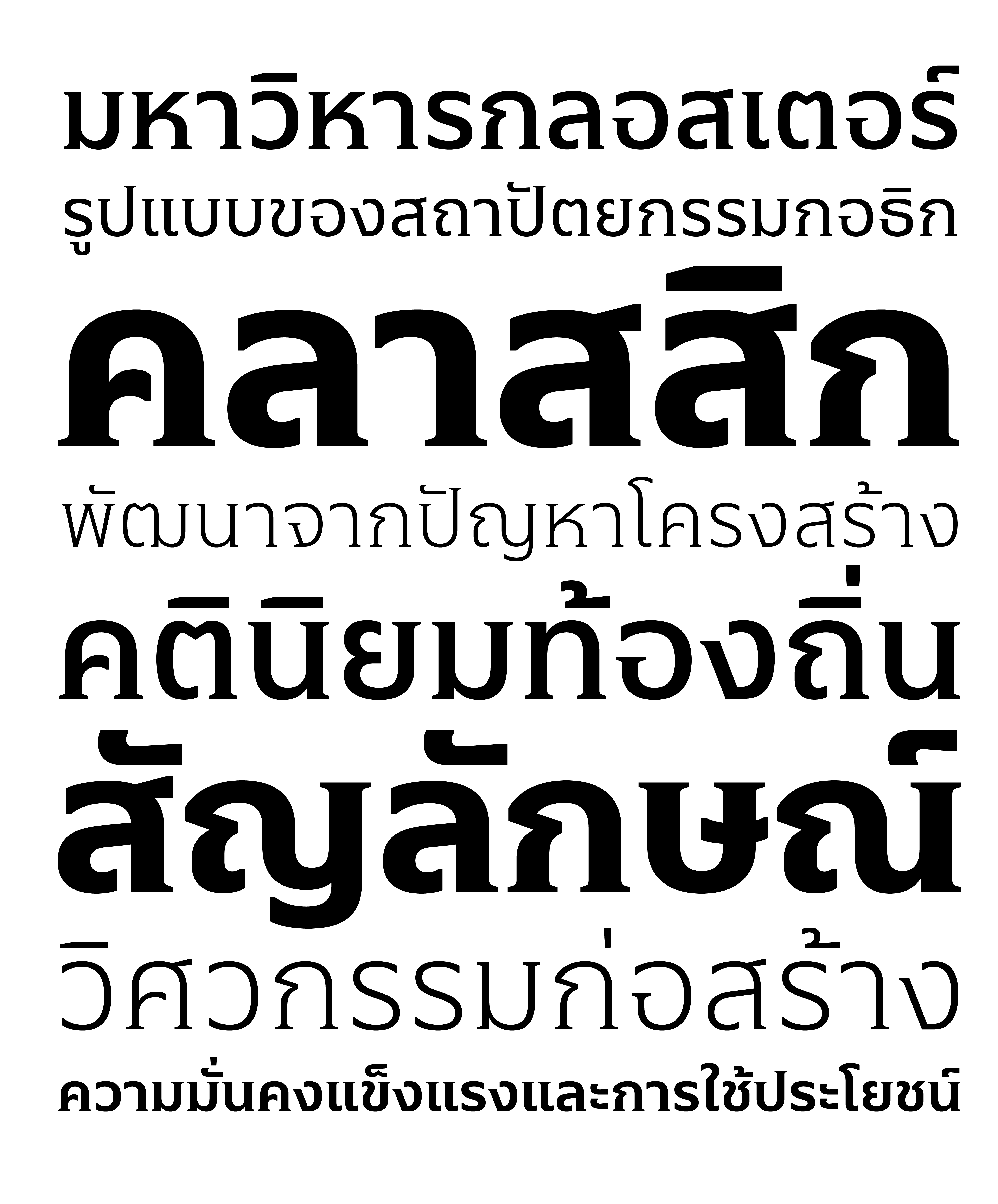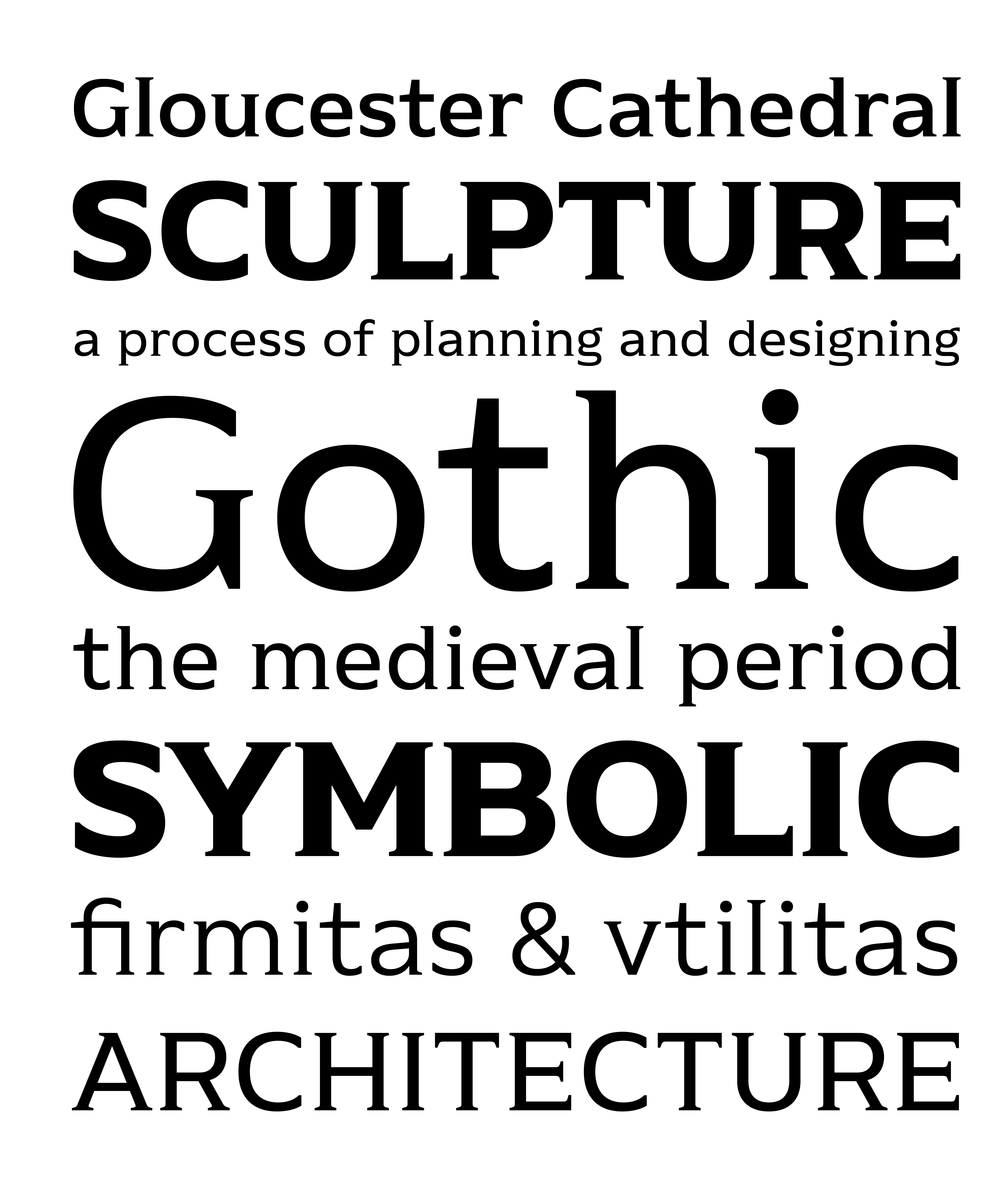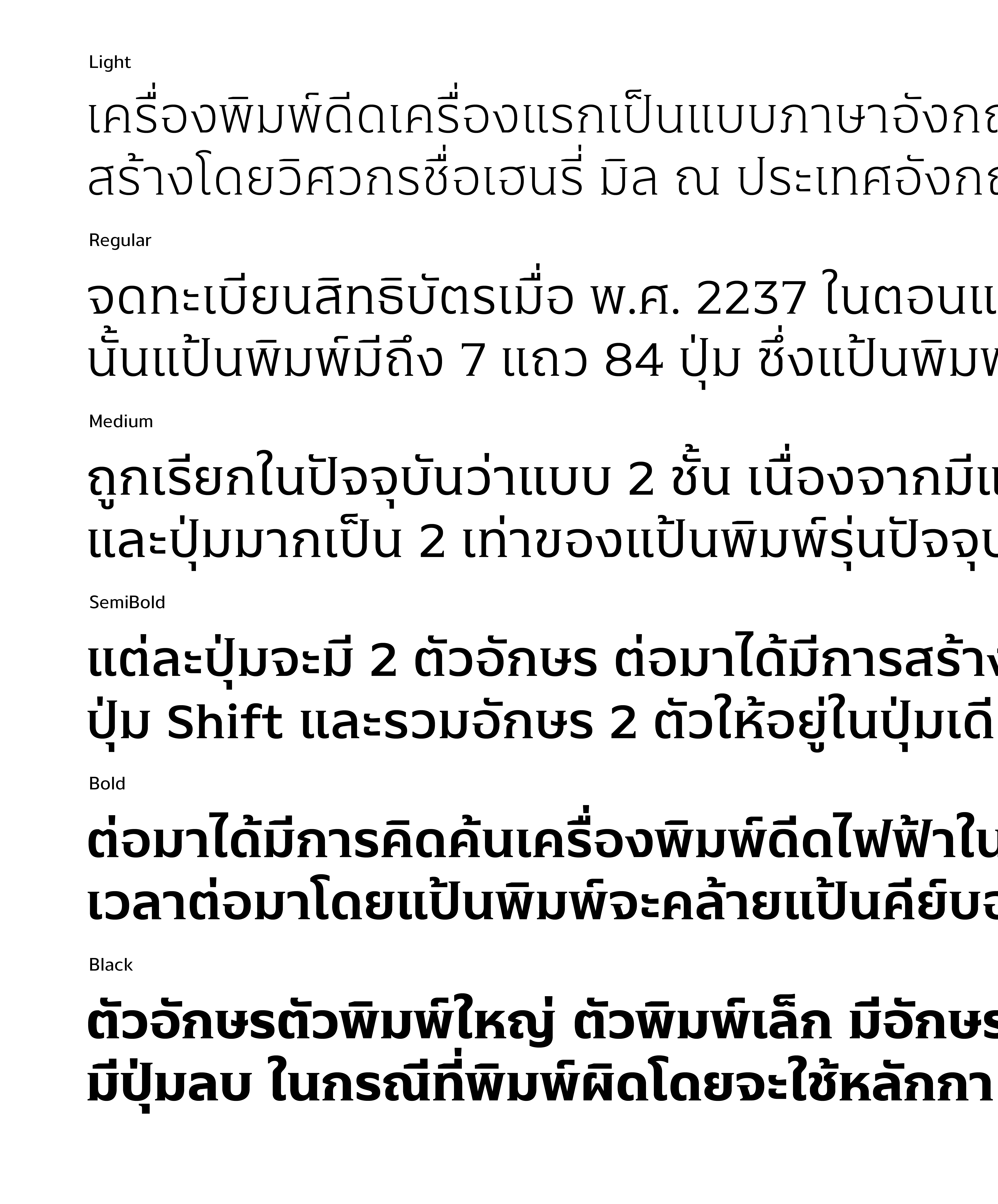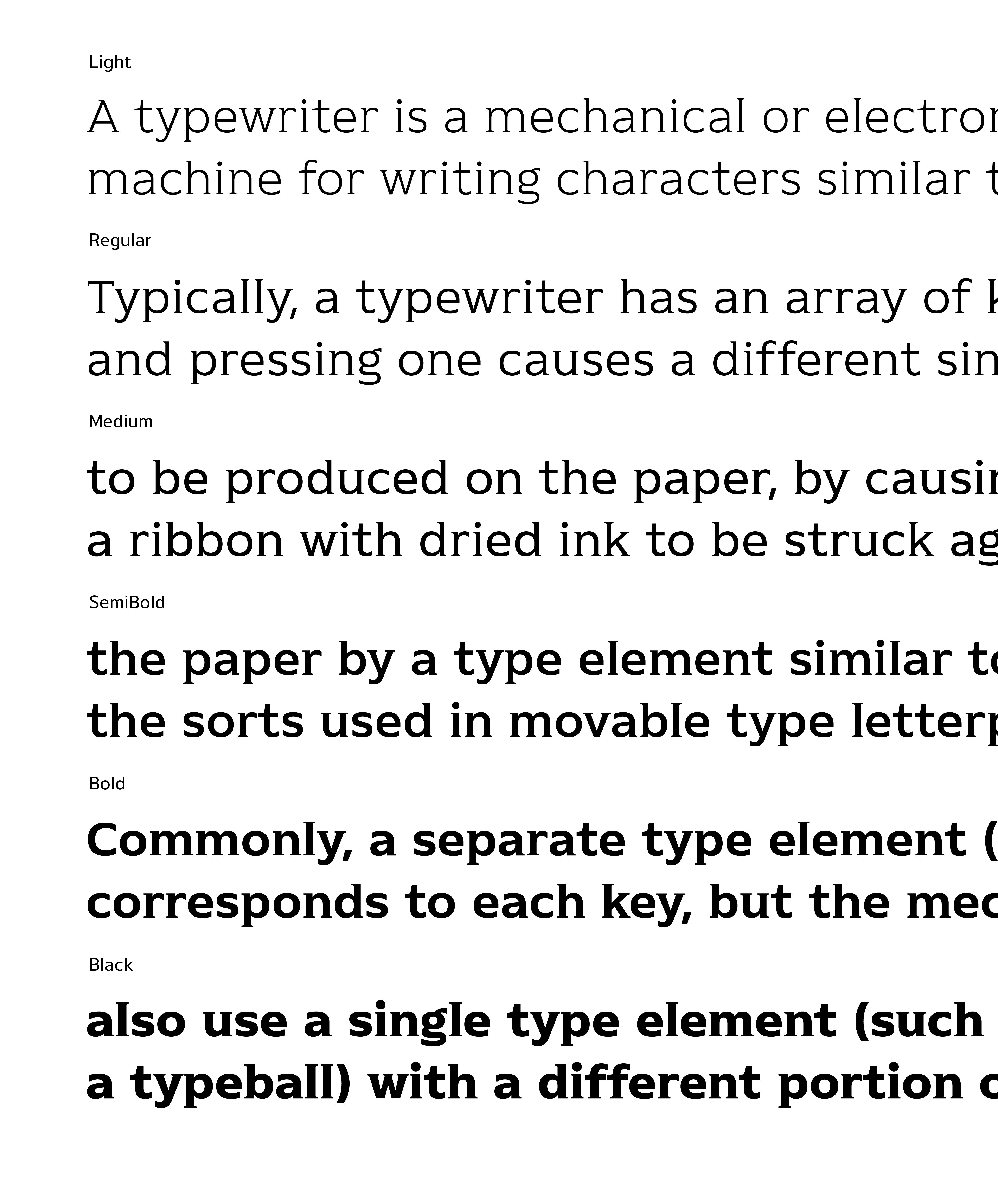
Thanasarn
Inspired by Copperplate typeface, Thanasarn is in the middle of luxurious and modern context. It is a contemporary, classy and fresh Thai loop less typeface that best suits your design needs.
Name : Thanasarn
Weight : Light, Regular, Medium, Semibold, Bold and Black
Language : Latin 1 / Thai
Designer : Parin Rungpattarathakun